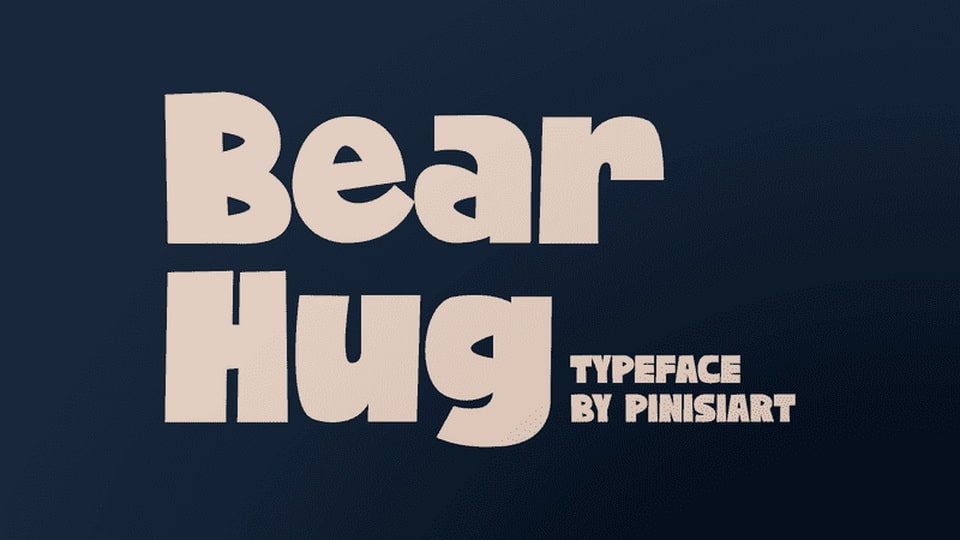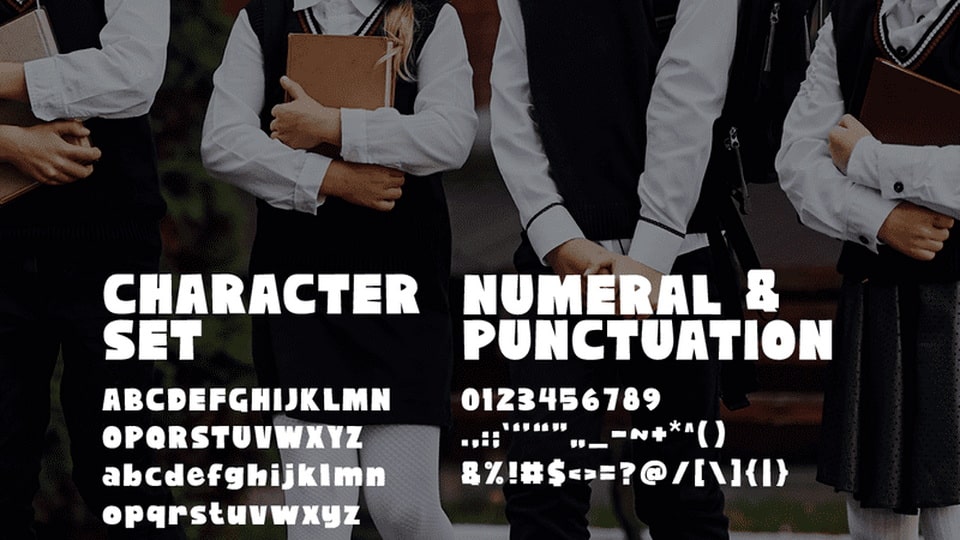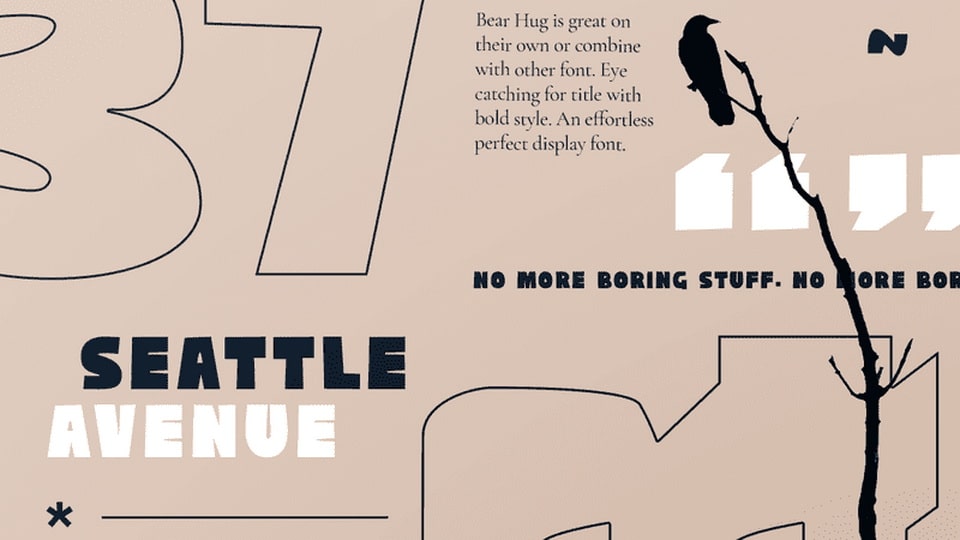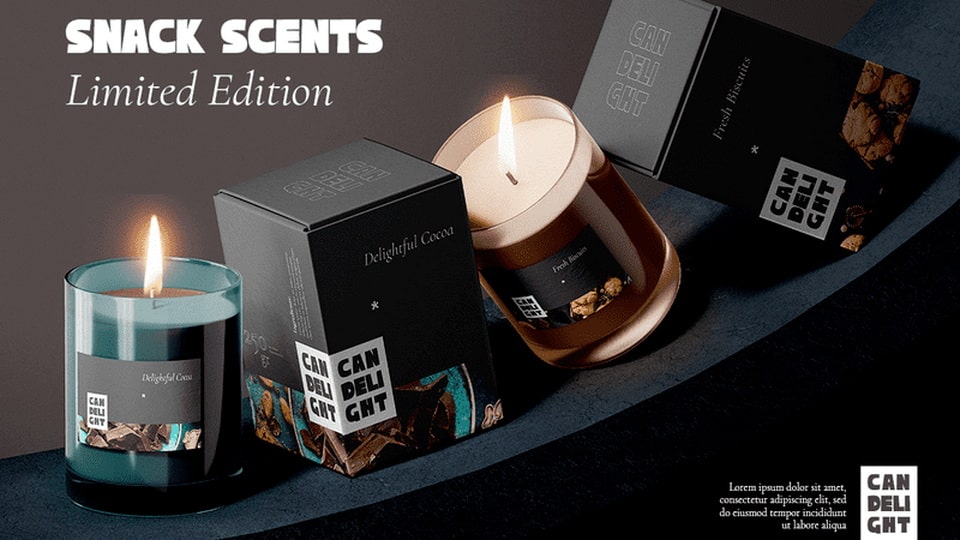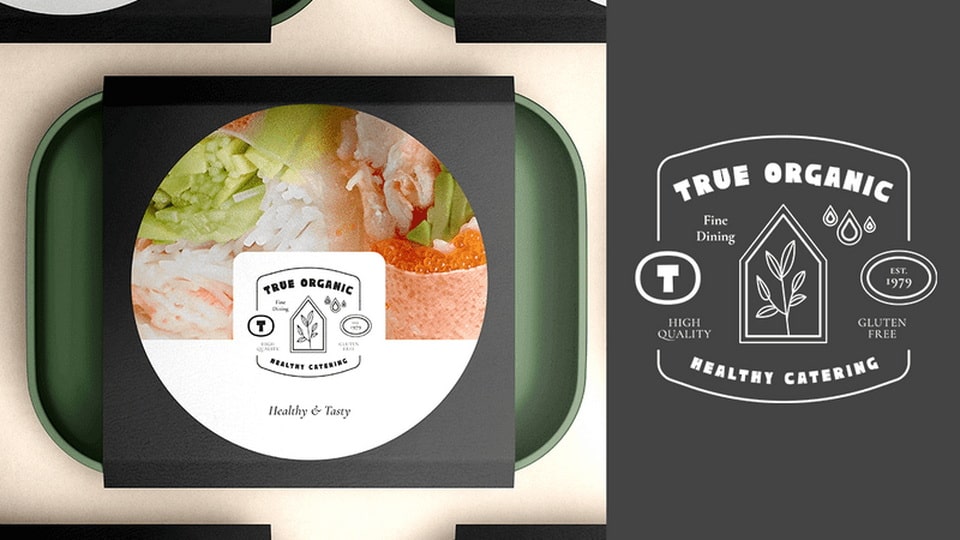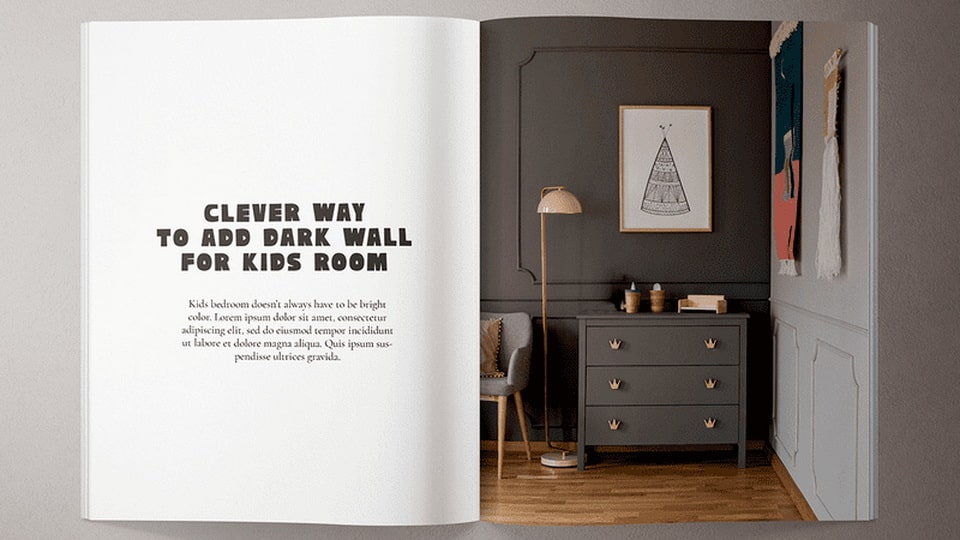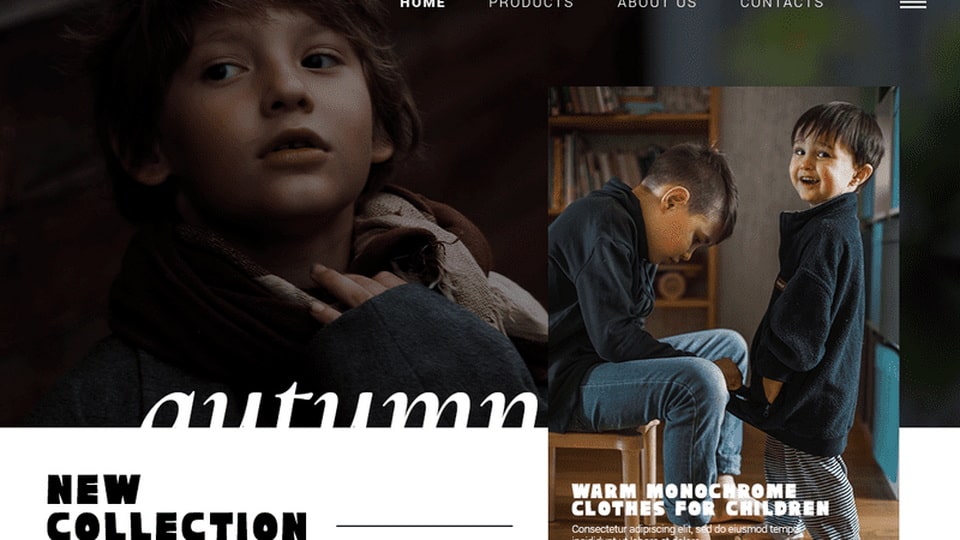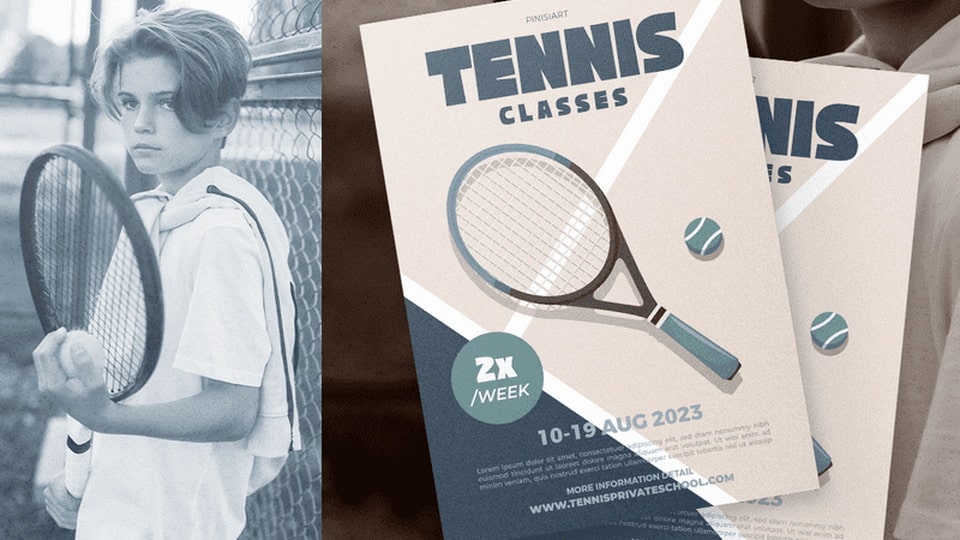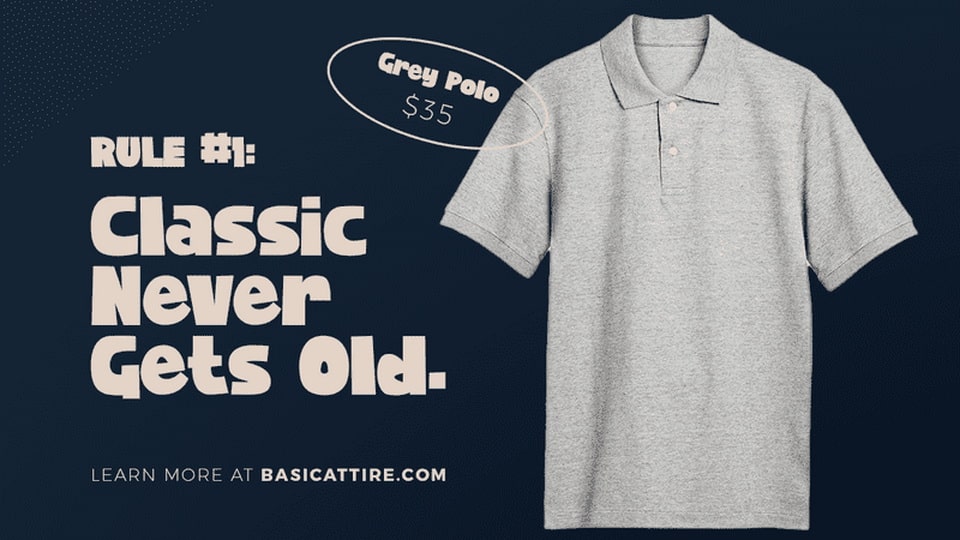
Bear Hug – Bold Font
A twist of classic bold sans-serif font that will emphasize anything it is written in a fun way.
Suit perfectly for mature and provocative and encouraging themes books market, economic posters, stationary, school supplies font, youtube covers, youtube thumbnails, social media page covers, and so on…